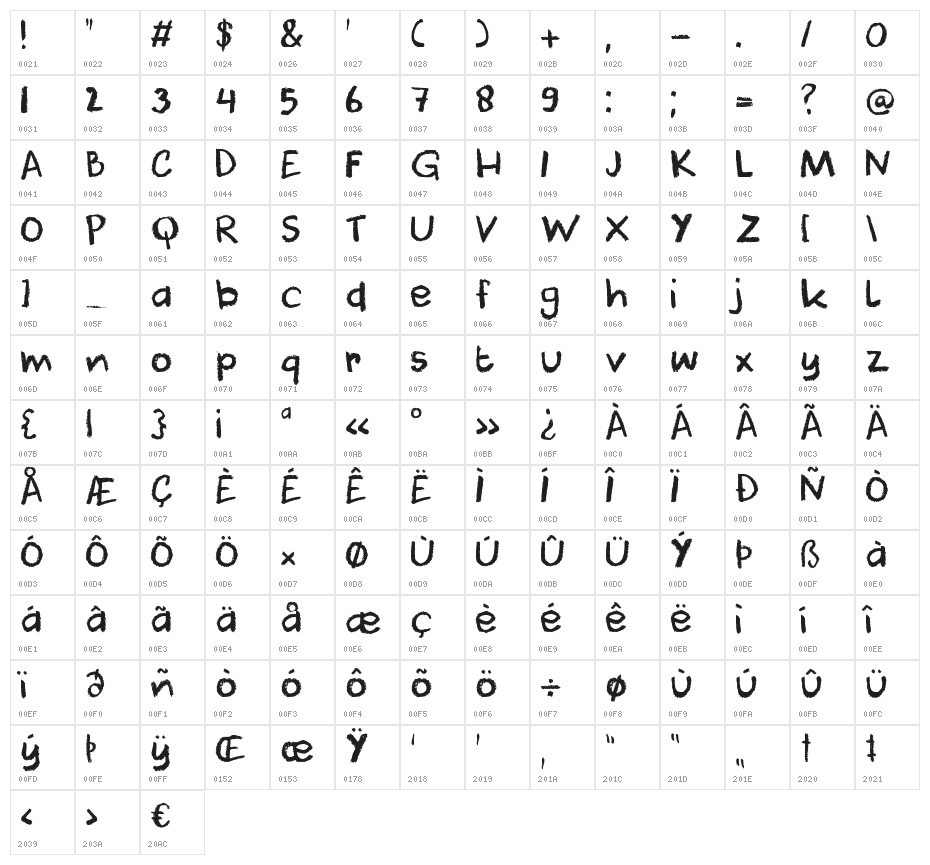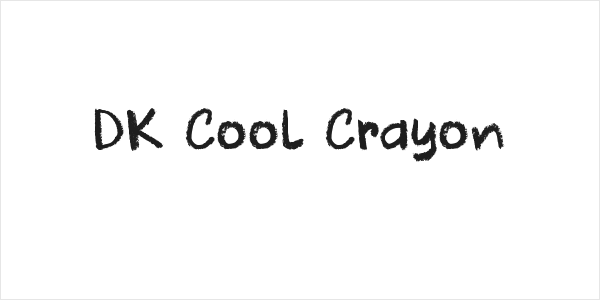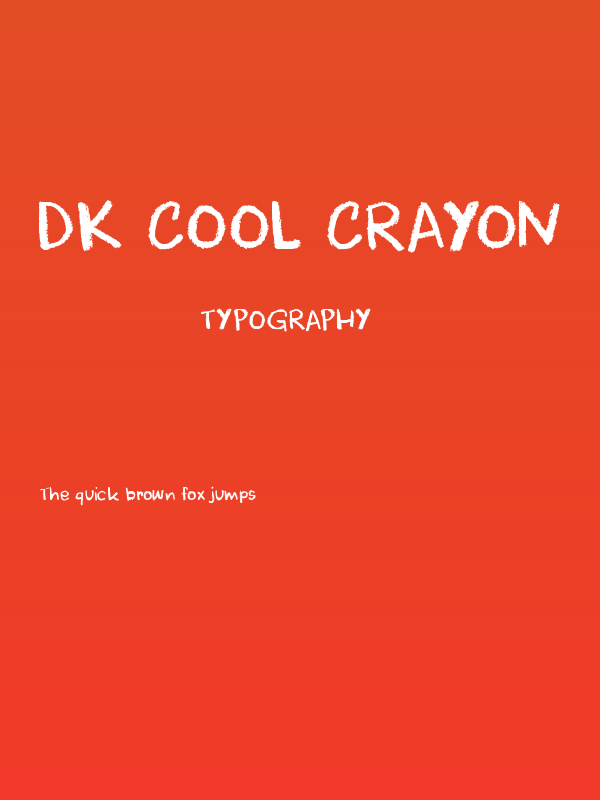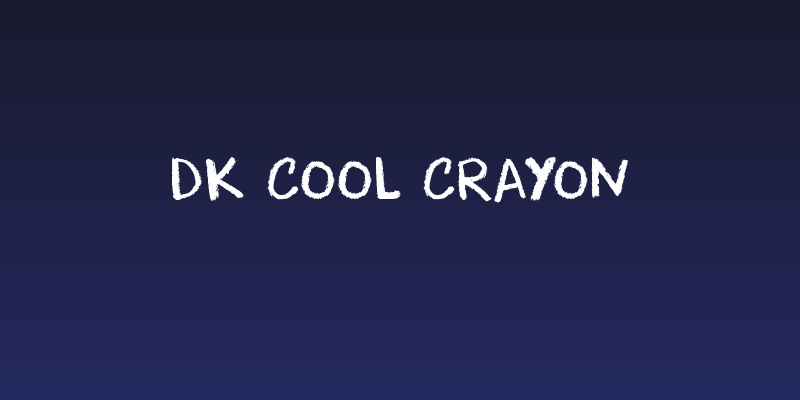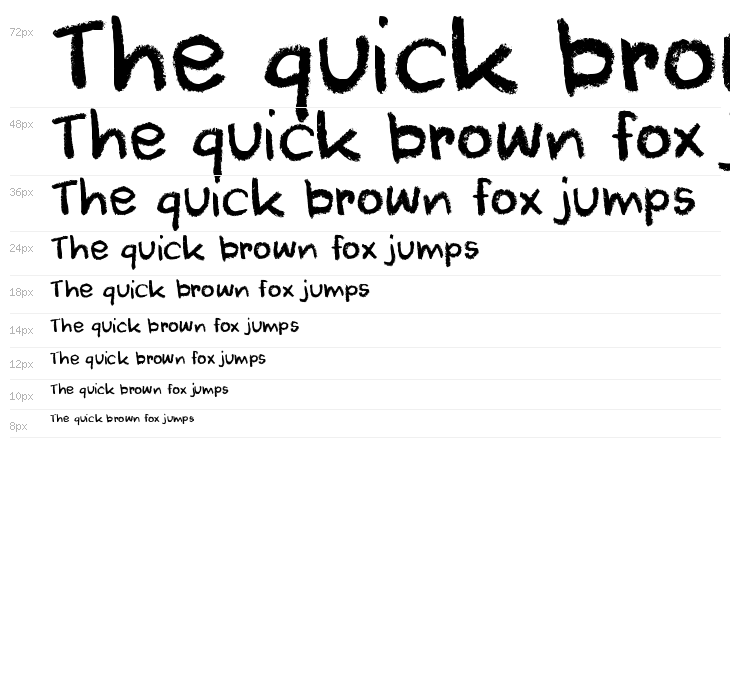
DK Cool Crayon Font
DK Cool Crayon Description
This playful and textured font mimics the appearance of crayon writing, offering a whimsical and childlike charm. The letters are bold and slightly irregular, with a rough, hand-drawn quality that adds a sense of authenticity and creativity. The uppercase and lowercase letters maintain a consistent style, with rounded edges and a slightly uneven baseline, enhancing the casual and informal feel. Numbers and special characters are equally expressive, making this font versatile for various creative projects. Its unique texture and style make it ideal for designs that aim to capture a fun, youthful, and artistic vibe.
| Proposed Projects | Ideal for children's books, educational materials, playful branding, and creative posters. |